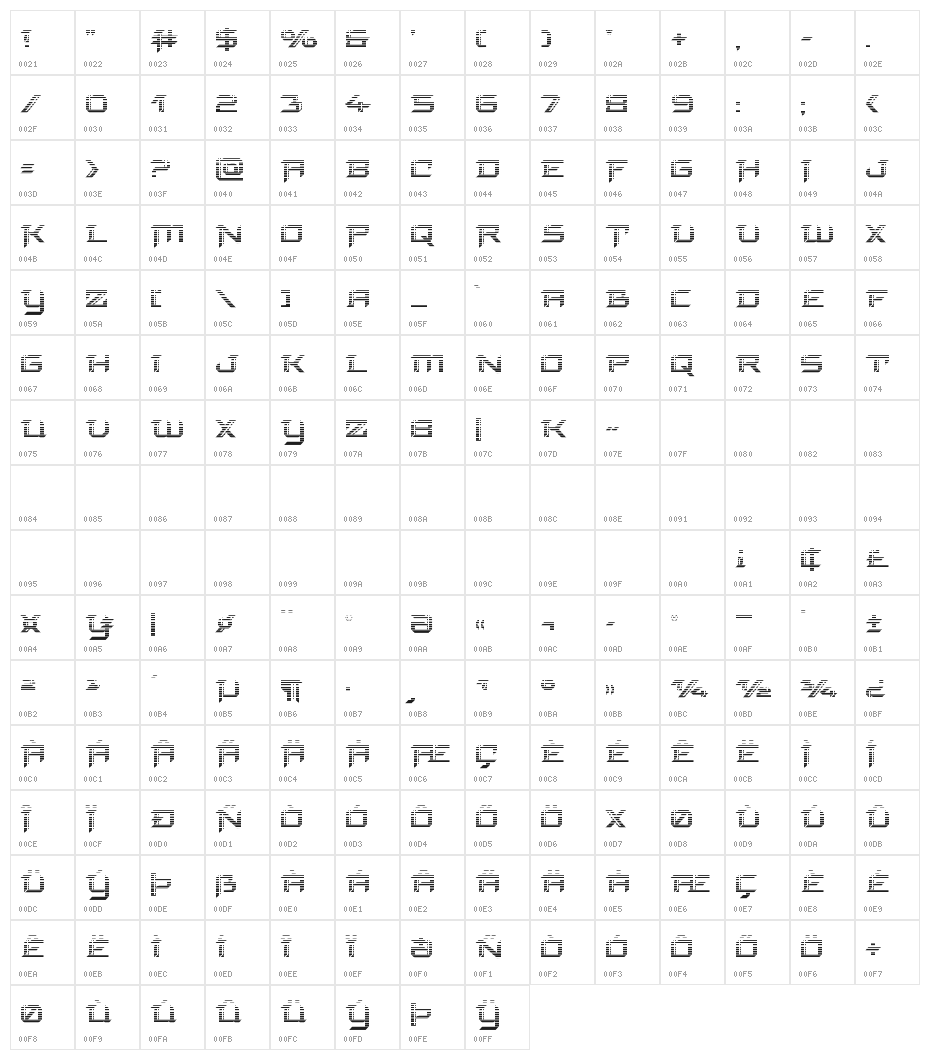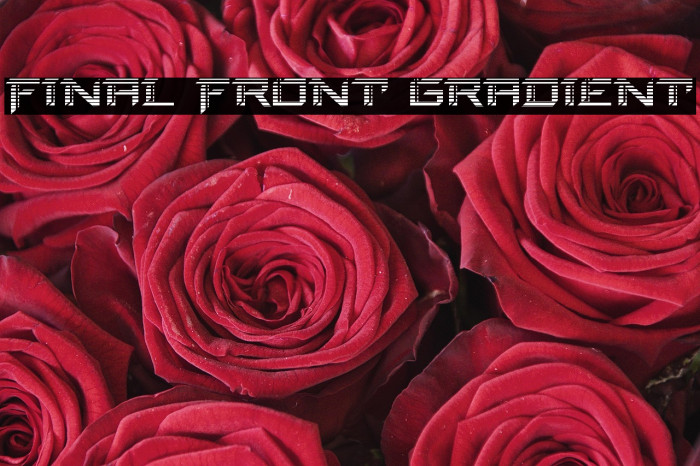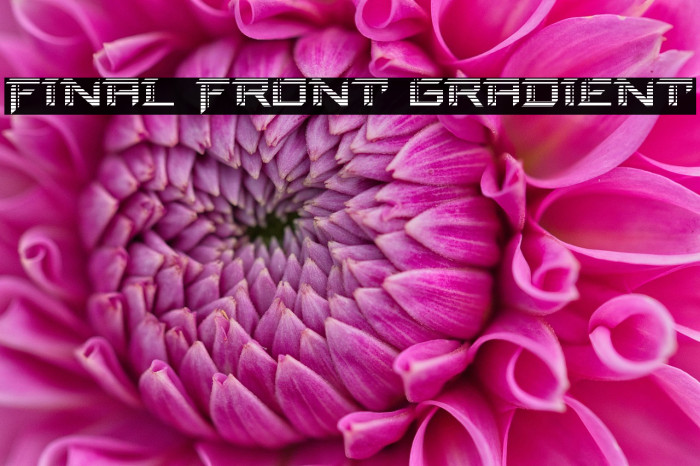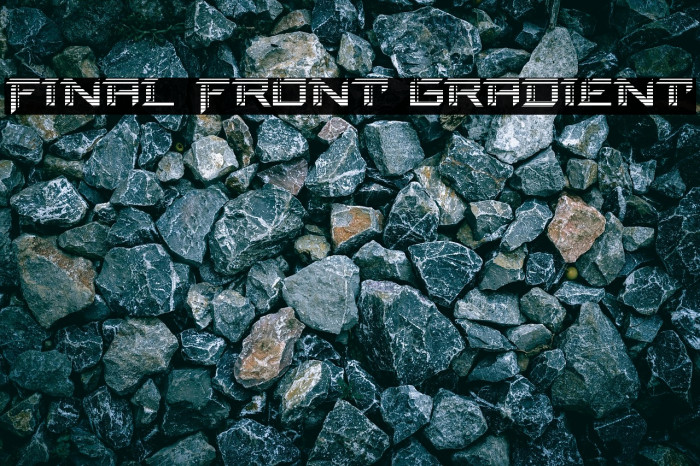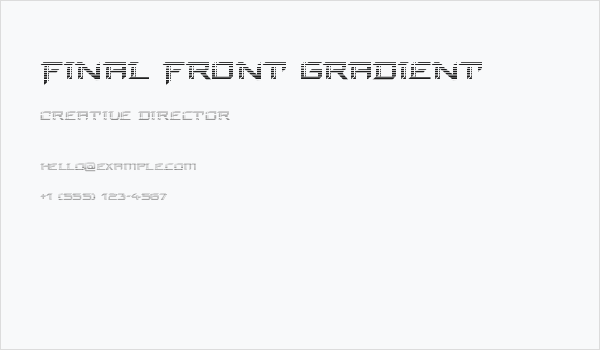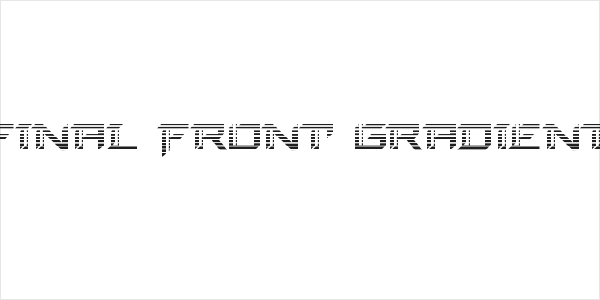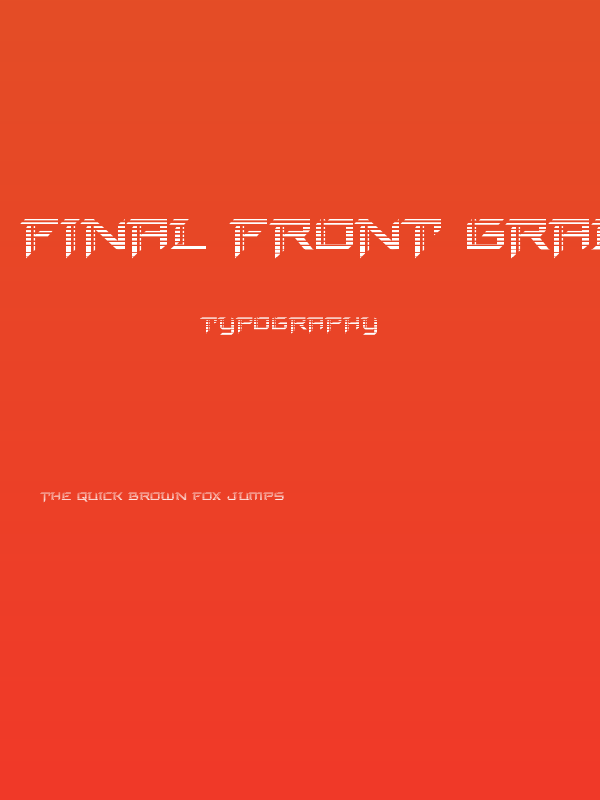
Final Front Gradient Font
Final Front Gradient Description
This font features a futuristic and digital aesthetic, characterized by its segmented and striped design. Each character is composed of horizontal lines that create a sense of movement and modernity. The uppercase and lowercase letters maintain a consistent style, with sharp angles and a geometric structure. The numbers and special characters follow the same design principles, ensuring uniformity across the font. This style is reminiscent of digital displays or sci-fi themes, making it stand out with its unique and bold appearance.
| Proposed Projects | Ideal for technology-themed projects, sci-fi movie posters, video game titles, or any creative work that requires a modern and edgy look. |